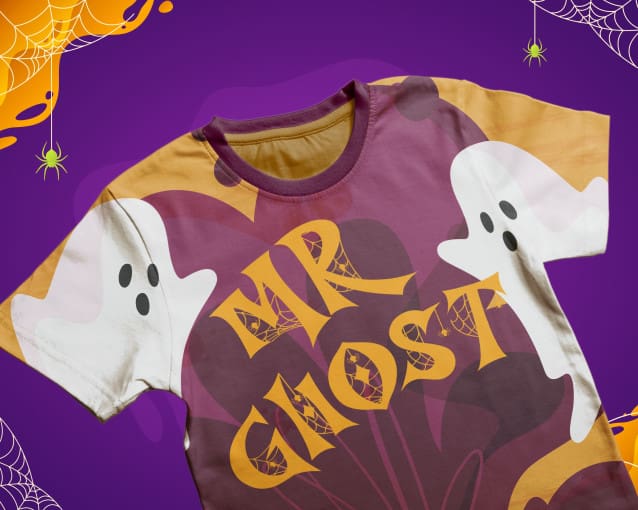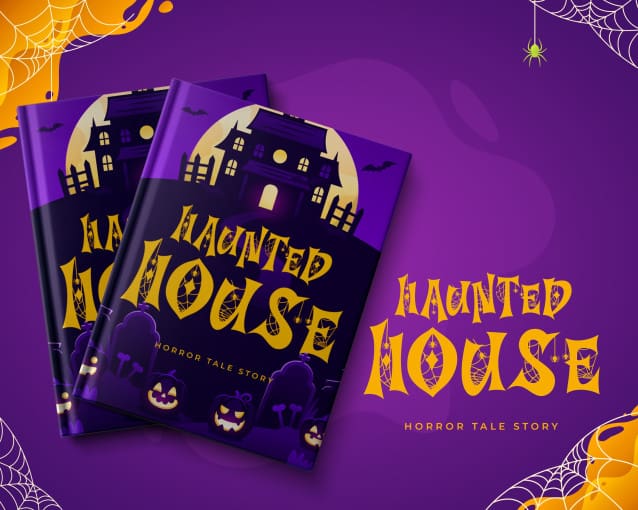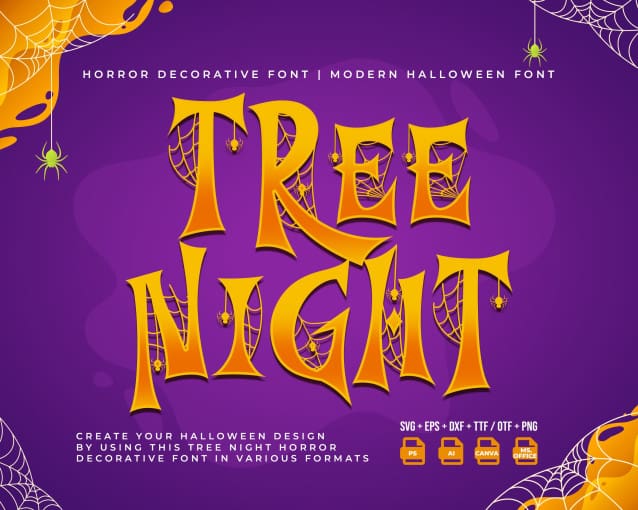
Tree Night Font
Tree Night Font – Decorative Tree Night Spider Webs Font, our unique and decorative font designed for logos and fun party fonts. Created with an elongated shape and featured with cobwebs, the Decorative Tree Night Spider Webs Font is our lightweight typeface that embodies fun and spooky characters. This font was created to work well both digitally and in print. This font is inspired by Spiderman.
This typeface has several characteristics that we can see closely in its rare forms. This unique shape is made to look modern, colorful, and fun. This font is the best font to use as party supplies. This font will be suitable for printing in medium and large font sizes.
Apart from the uses mentioned above, you can use the Decorative Tree Night Spider Webs Font for horror-themed event posters. This font Can use as tickets, banners, and stickers. The unique font design will also attract the attention of readers who see this poster scattered in various places, so they are interested in reading more about the poster’s contents.